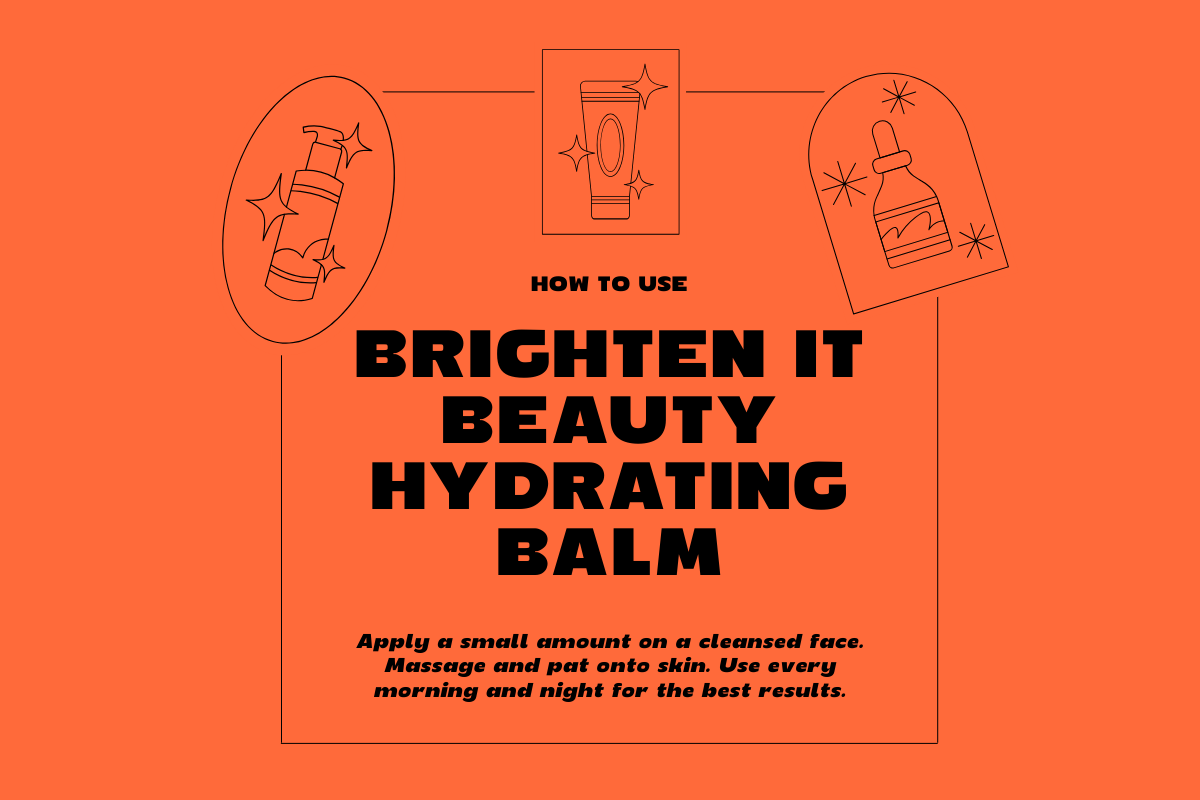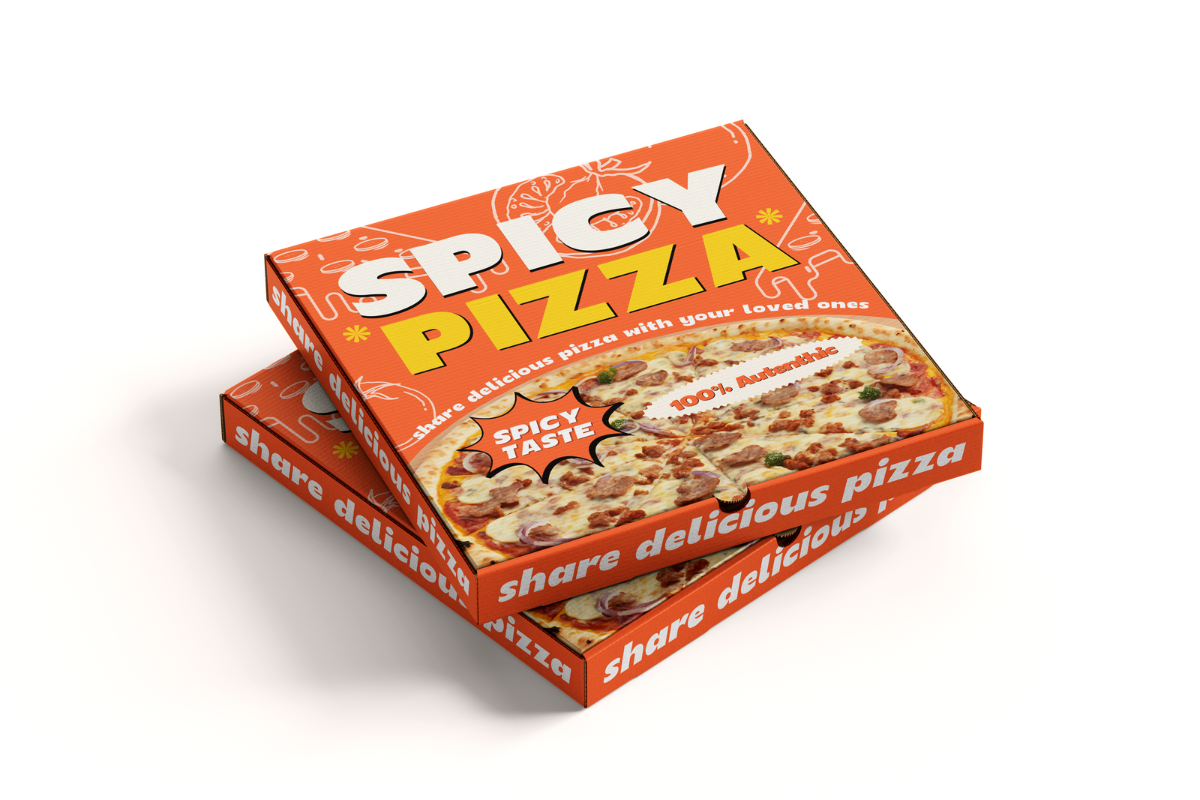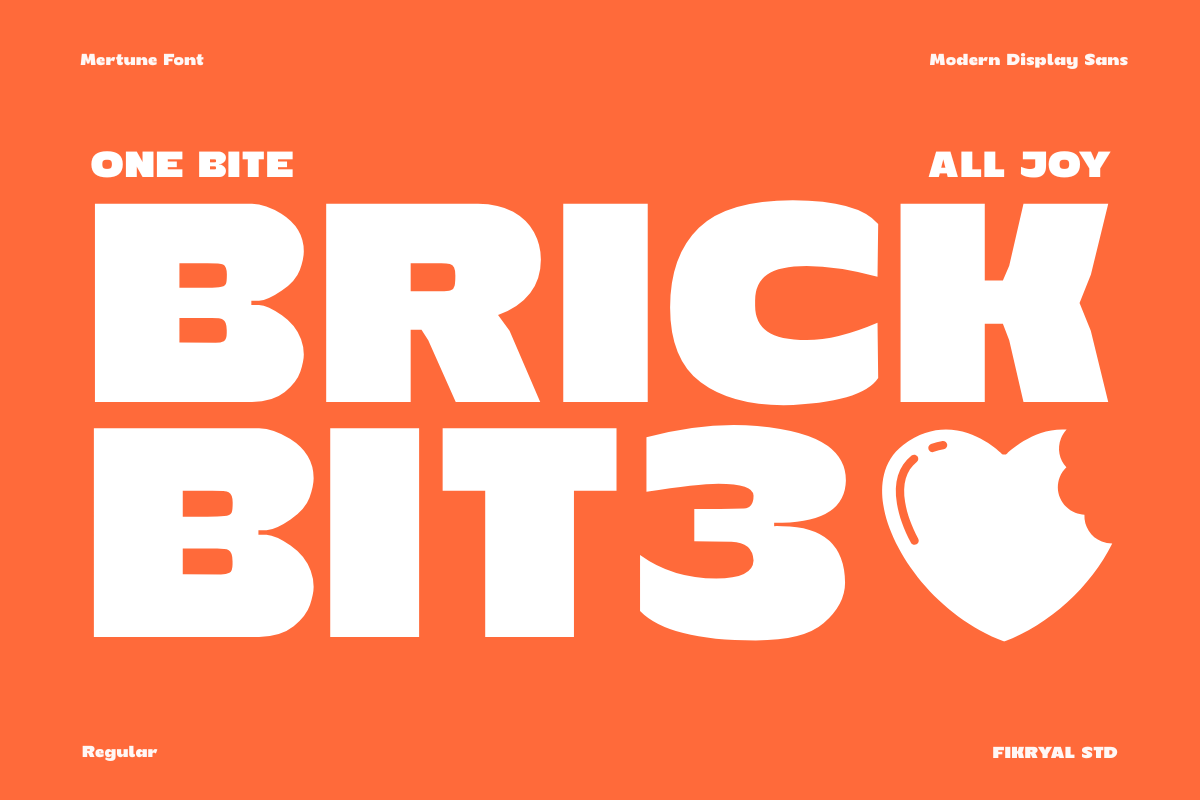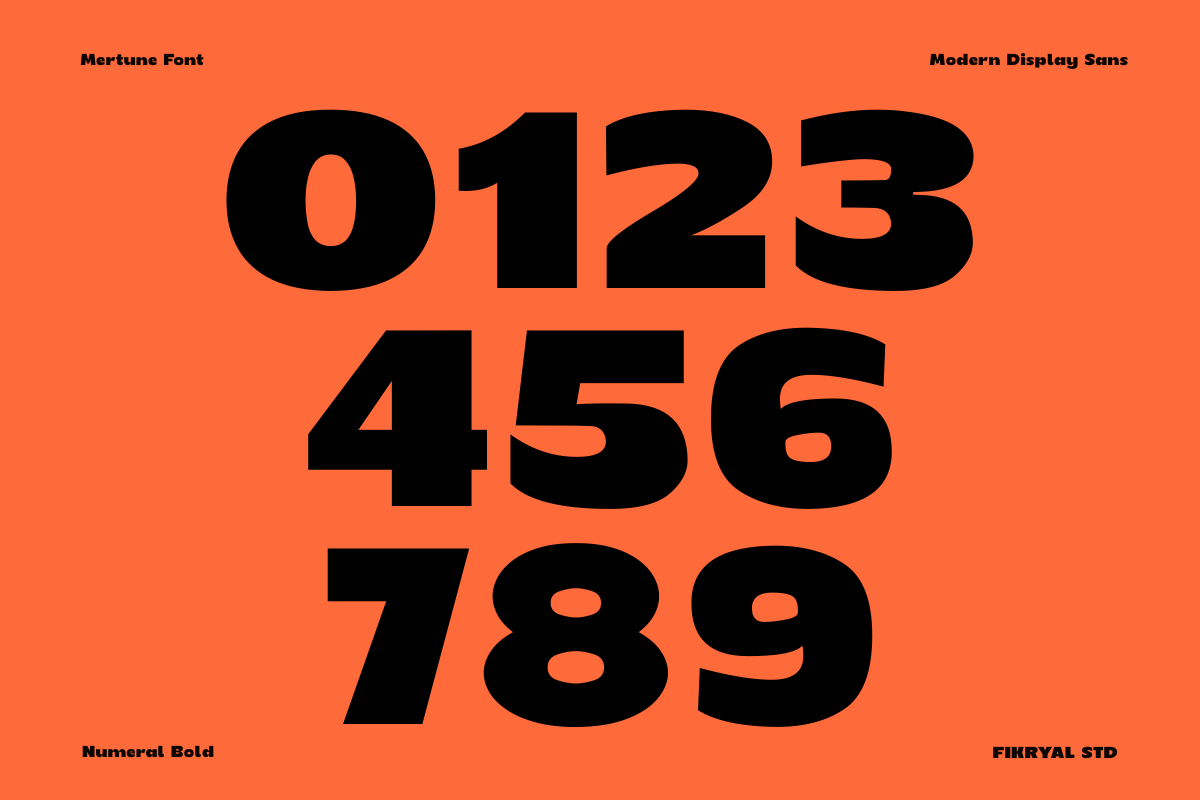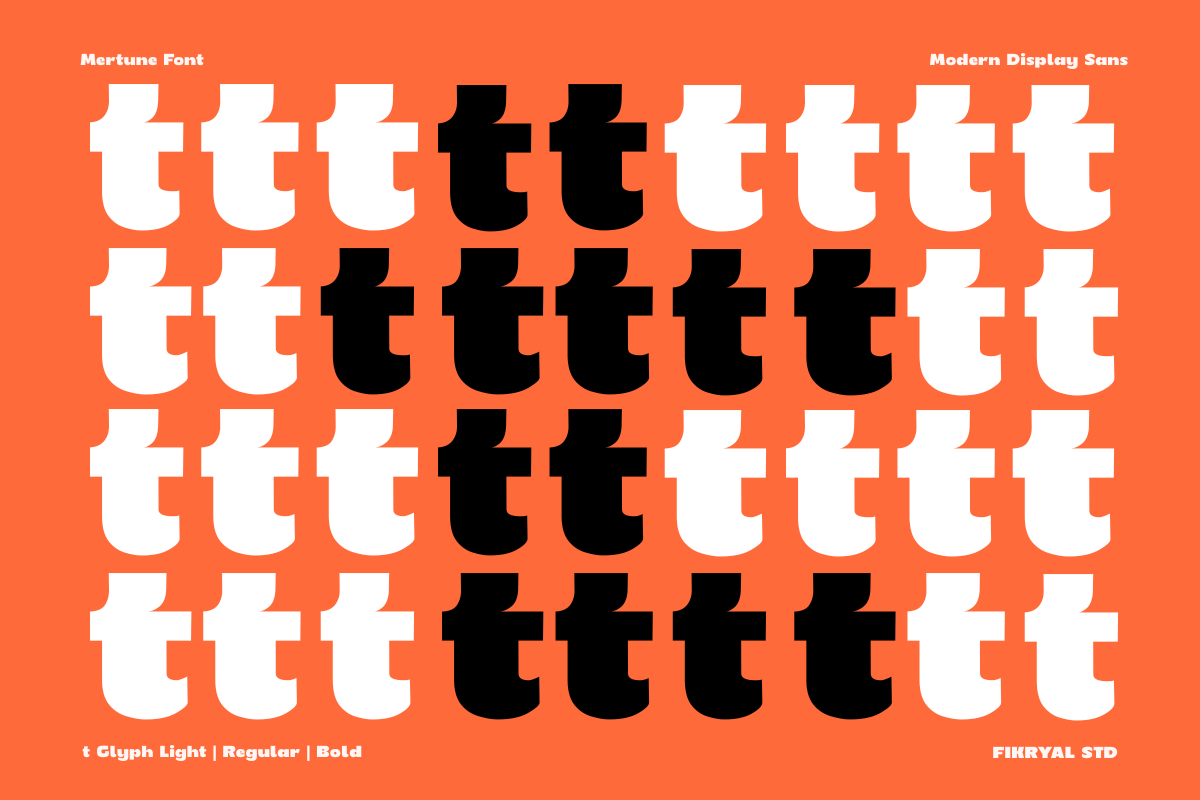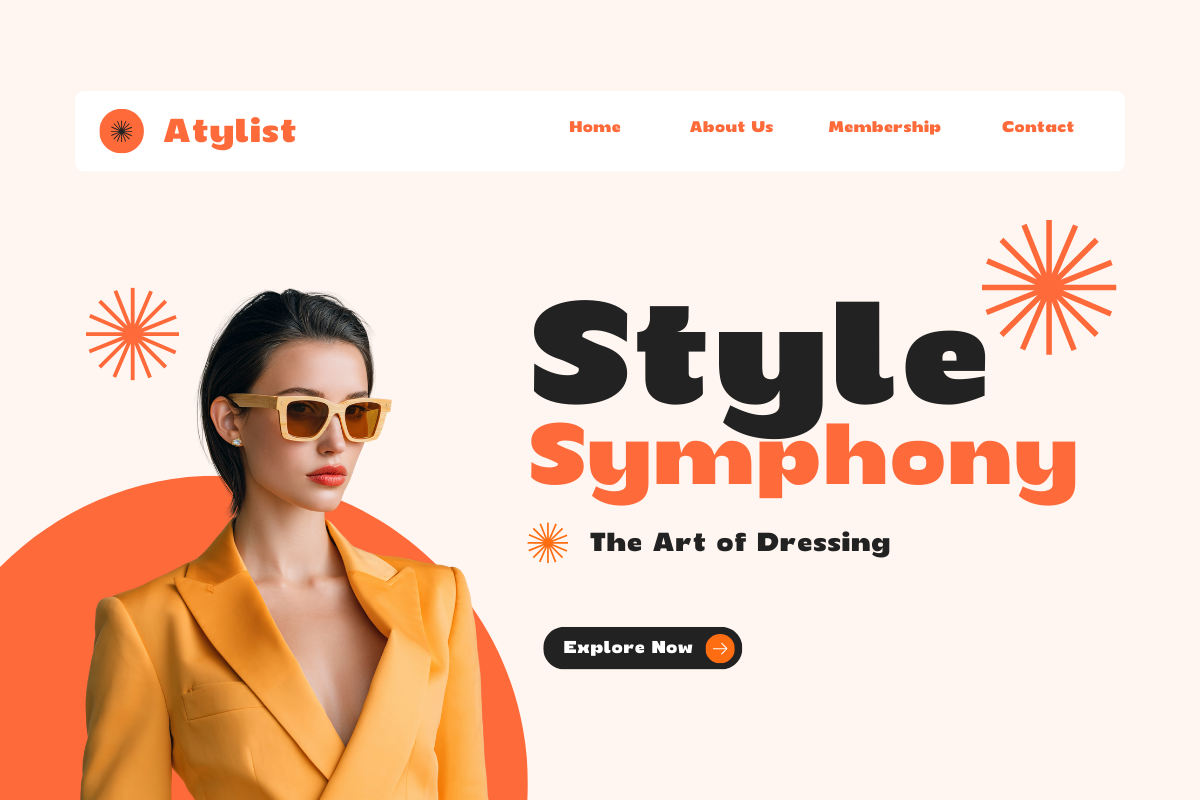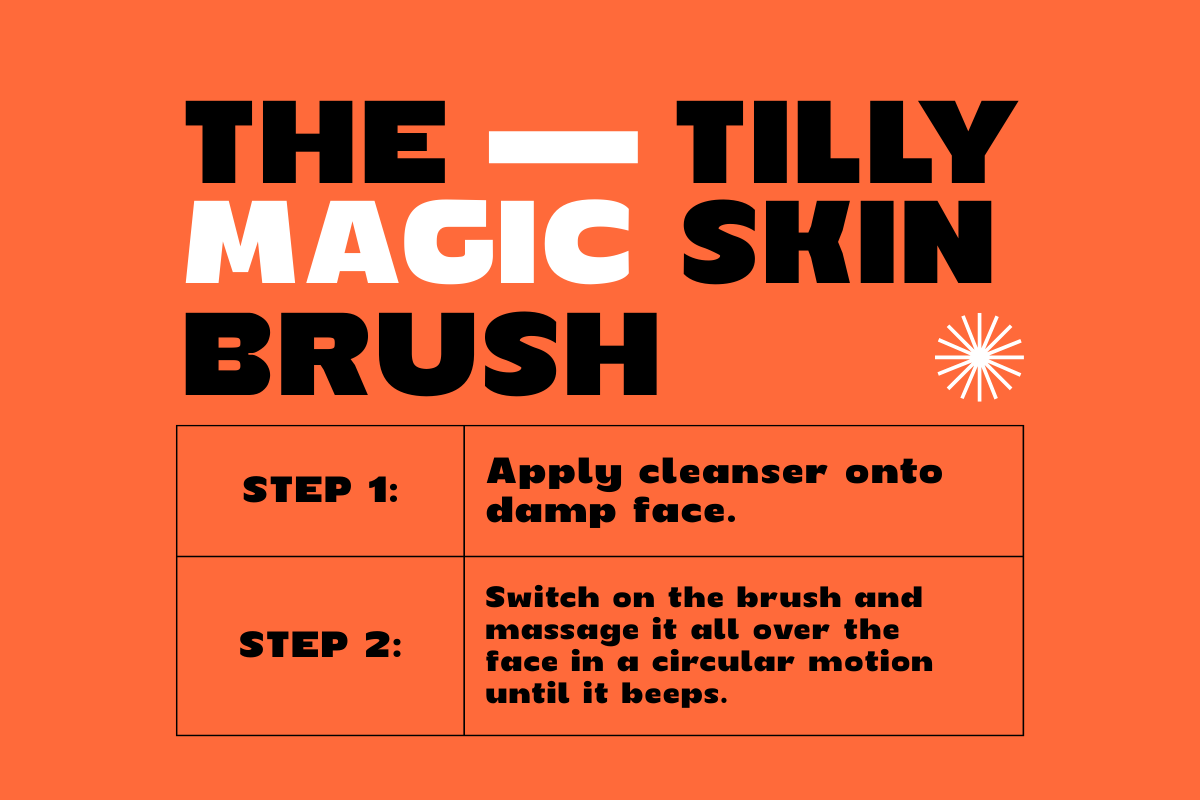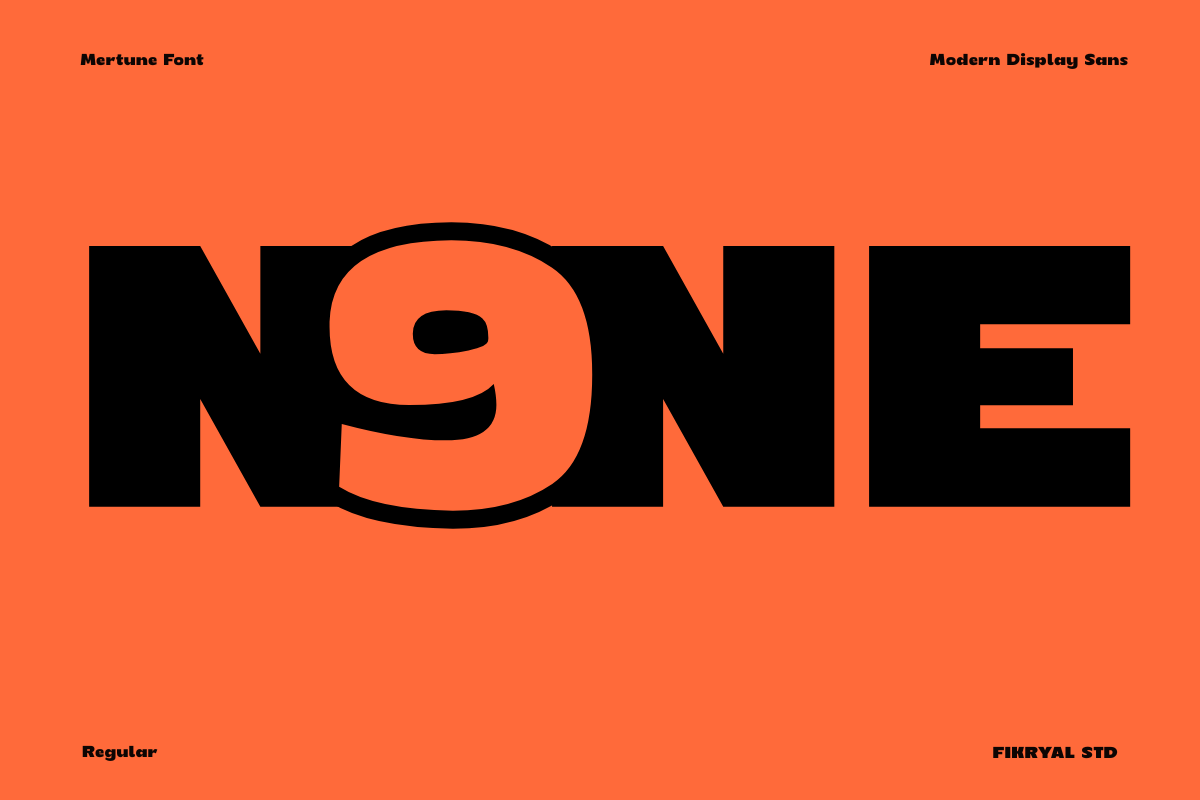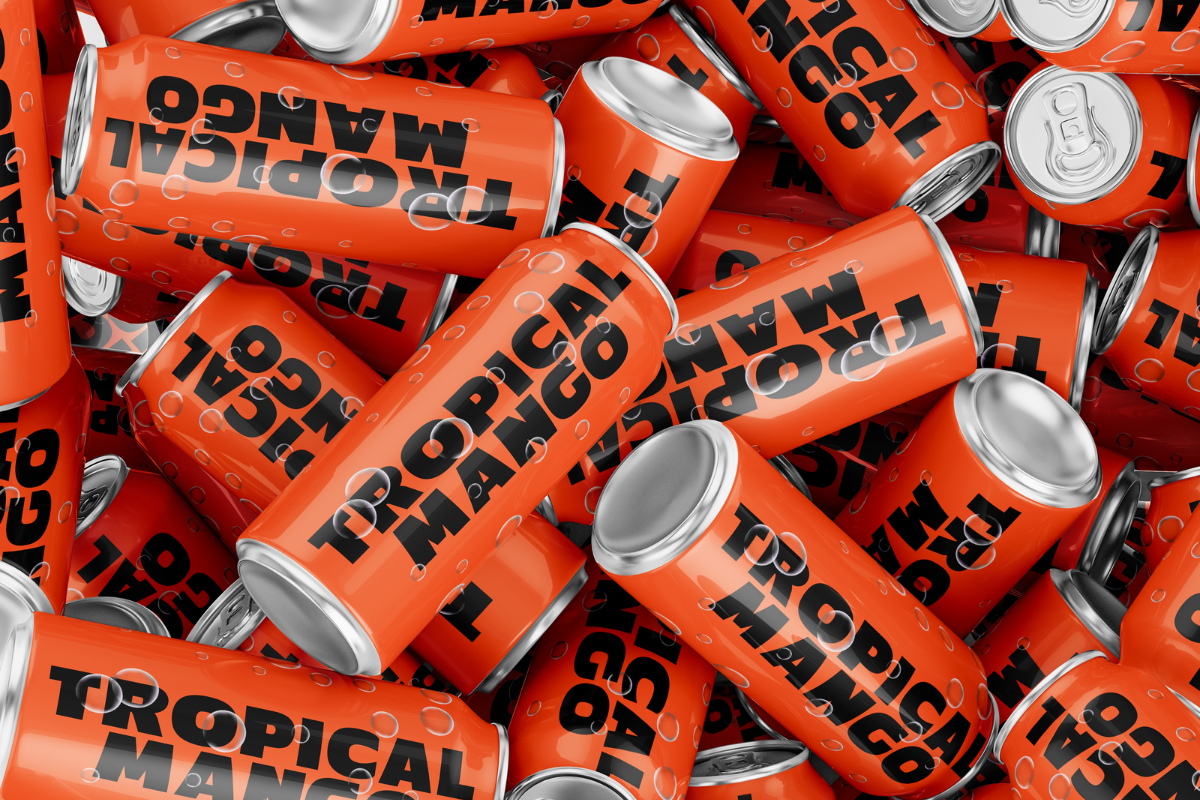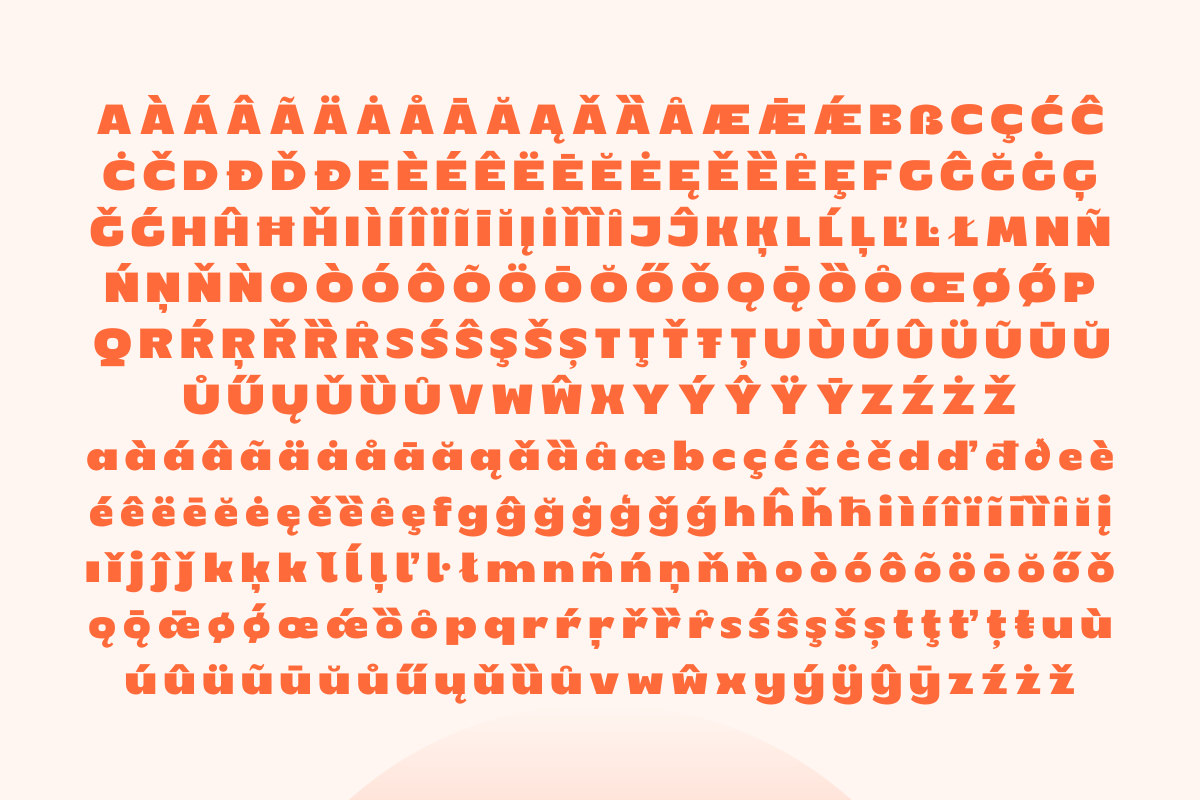
Mertune – Sans Serif Display Font
Mertune is a premium modern sans serif display font designed to deliver bold impact with a refined, professional edge. Its confident letterforms combine playful energy with clean, contemporary structure, creating a typeface that feels expressive yet controlled.
Built for versatility, Mertune features six carefully crafted styles — Light, Regular, and Bold, each with matching italics — allowing designers to create dynamic visual hierarchy while maintaining a consistent typographic voice. The shapes are solid, well-balanced, and highly legible, making the font reliable for both striking headlines and polished brand systems.
Mertune is an excellent choice for branding and identity design, logos, headlines, packaging, advertising, social media, editorial layouts, websites, and modern marketing materials. Whether used by creative studios, startups, or established brands, this font brings a bold presence with a premium finish.
Modern Sans Serif Display Typeface
6 Styles: Light, Regular, Bold + Matching Italics
Strong, Bold, and Clean Character Shapes
Uppercase & Lowercase Letters
Optimized for Print and Digital Media